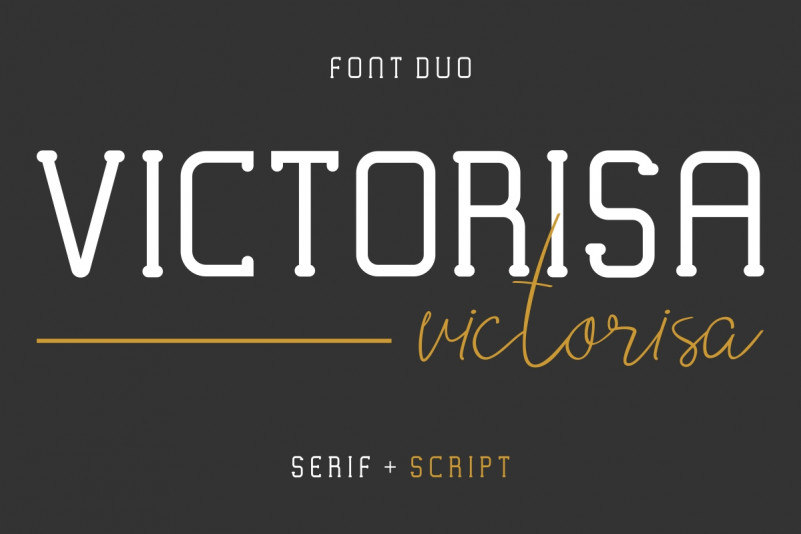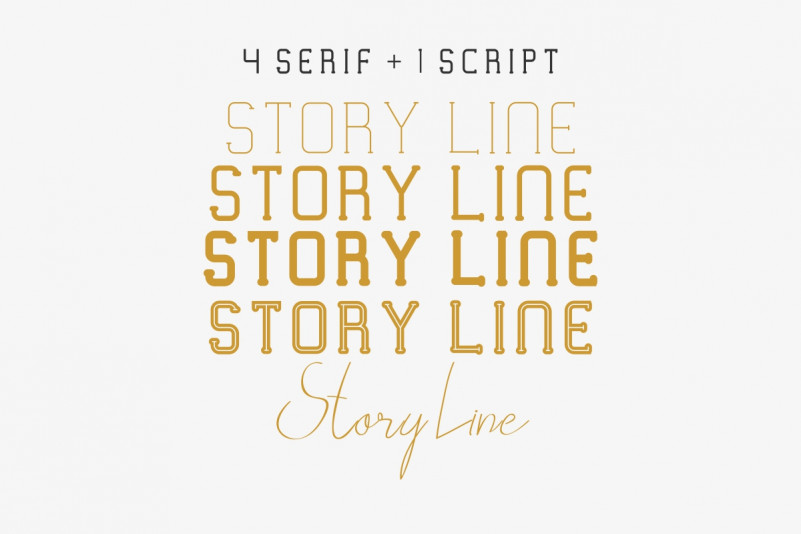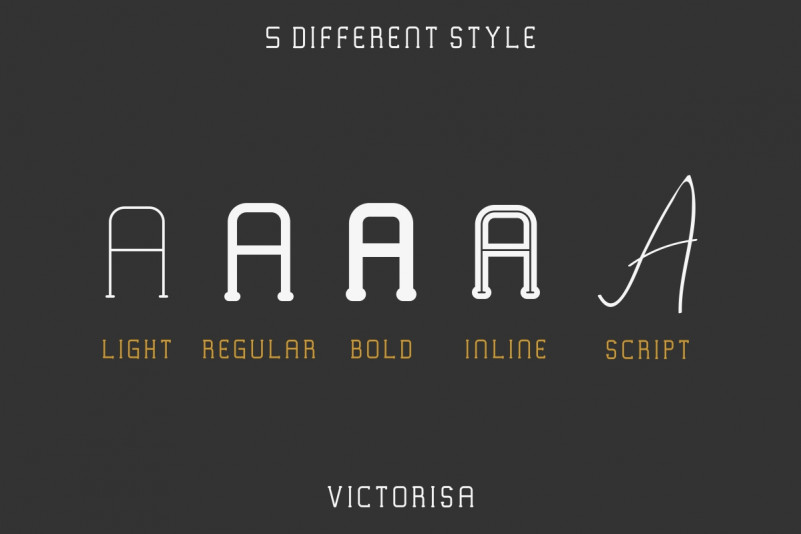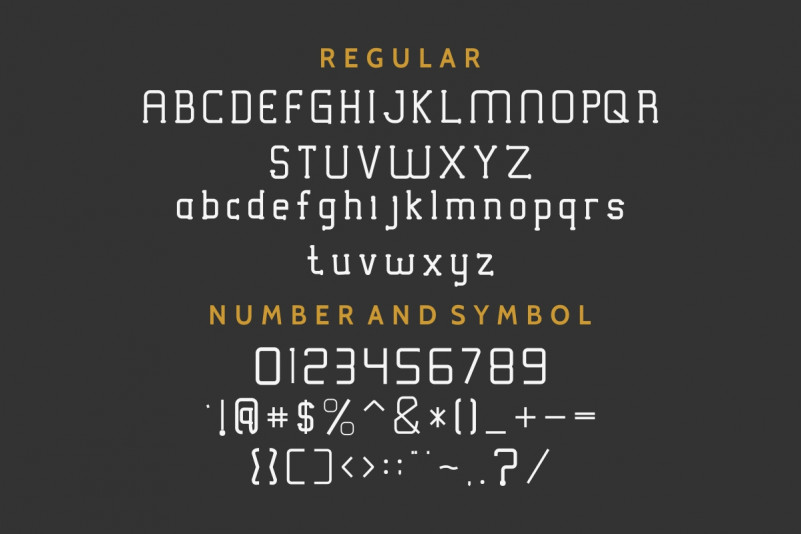
This is a new modern elegant sans + script font. It has a fresh, exclusive and stylish glyph. Will be Great for branding, logo, stationery, business card, signage, flyer, brochure etc. There are many industries that is suitable for this font : construction, real estate, services, law firm